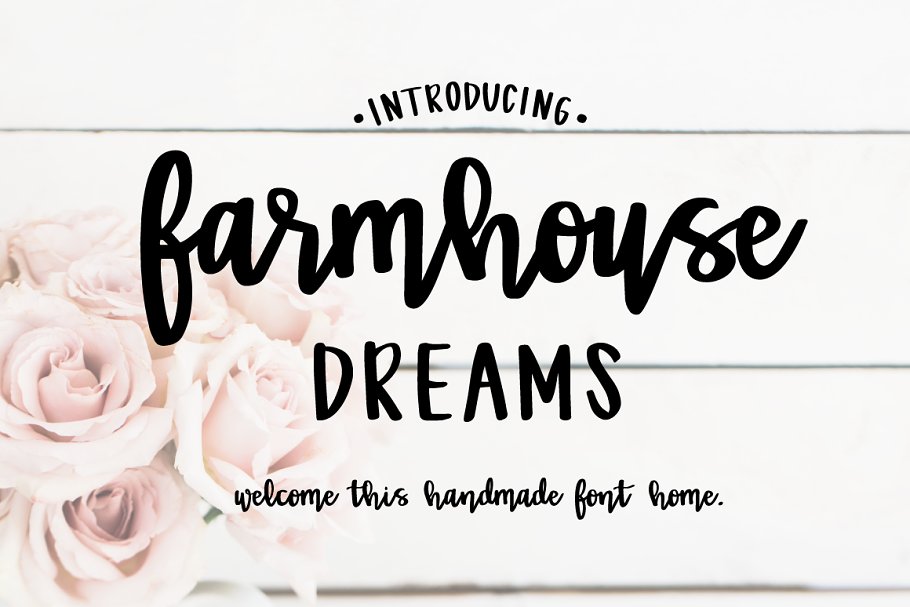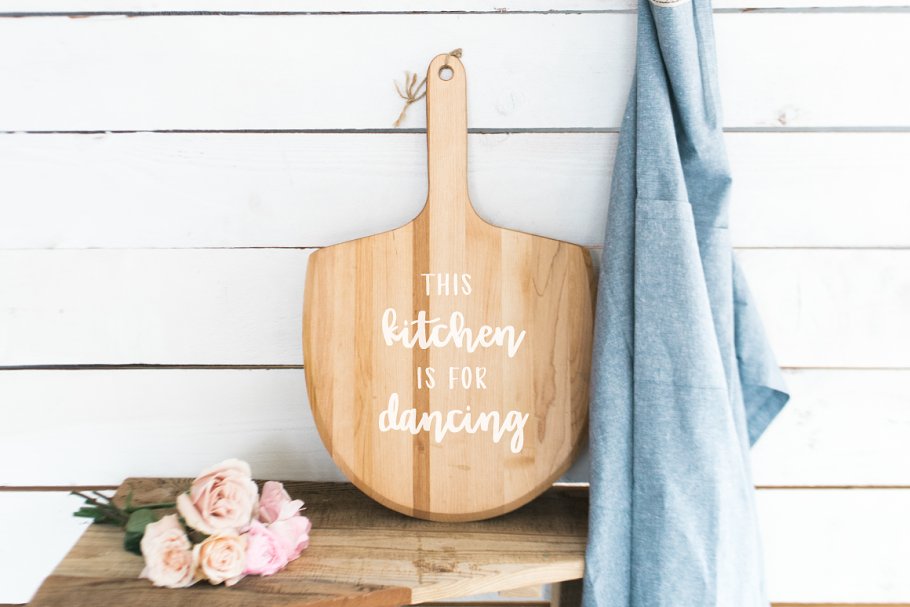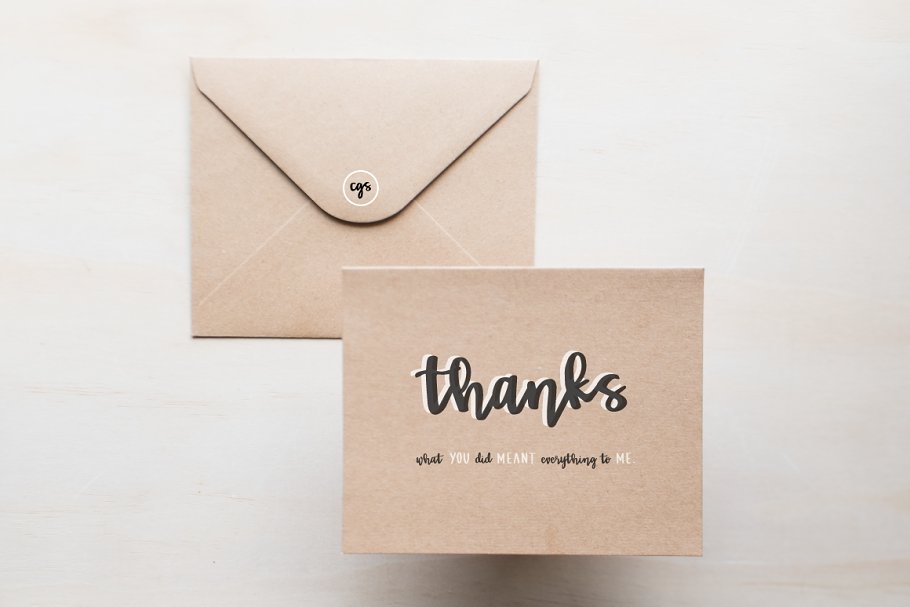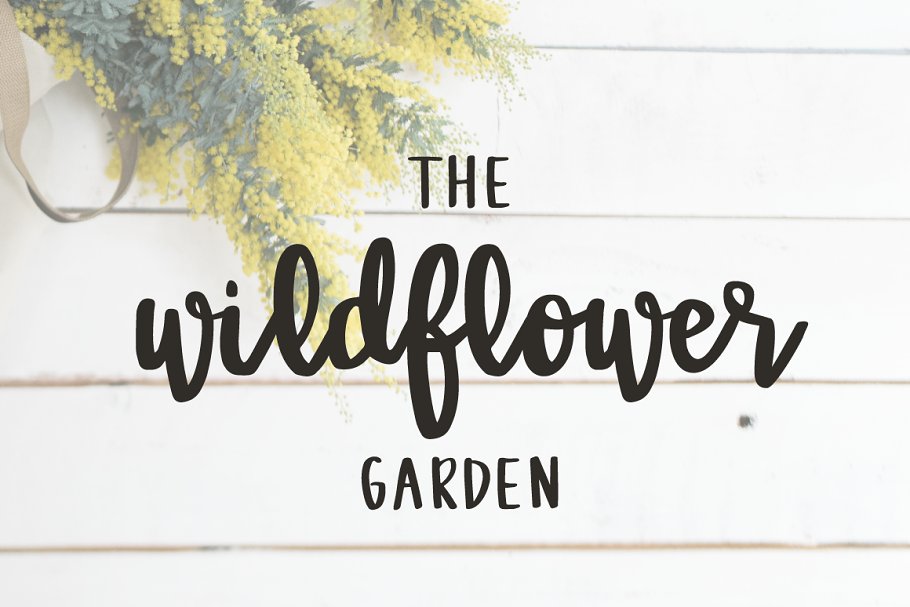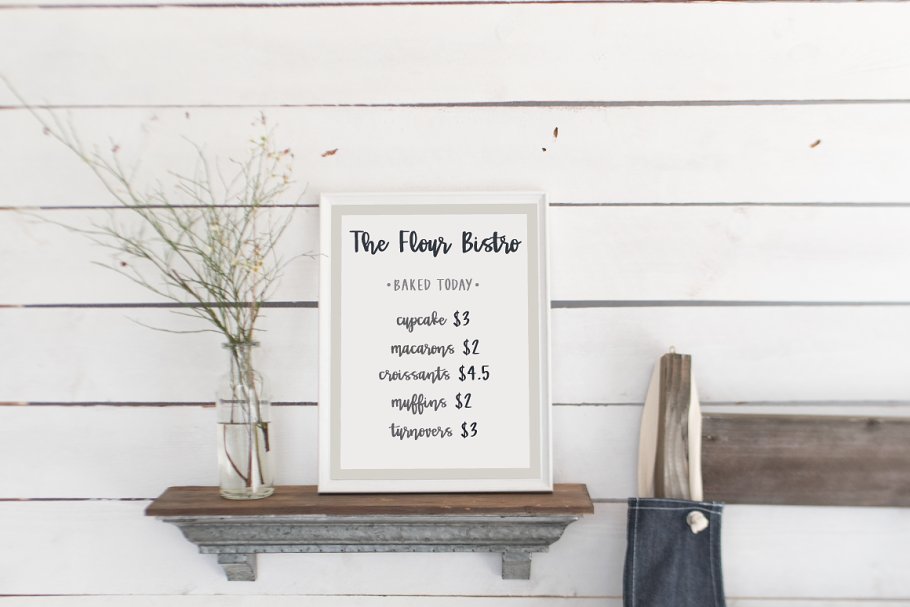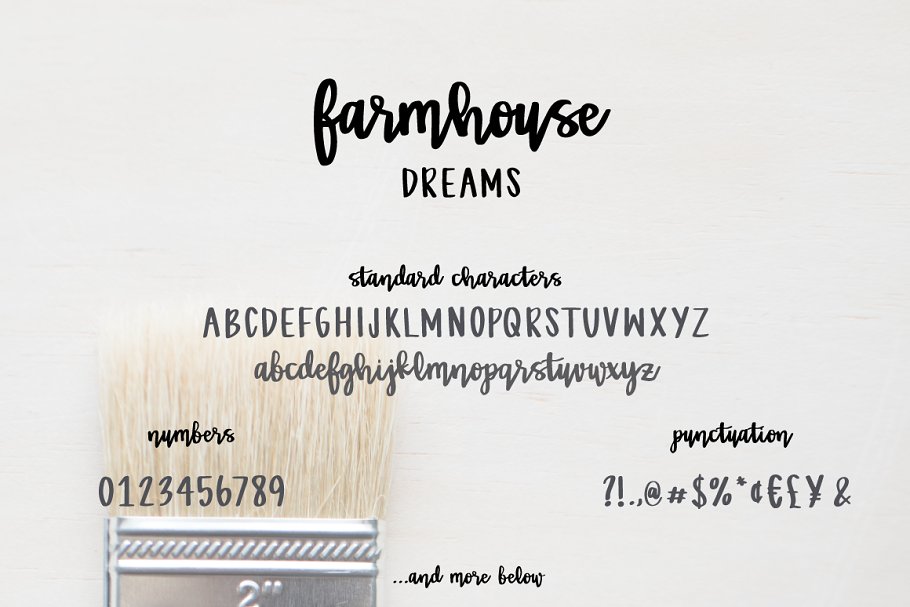
About the Farmhouse Dreams Script Font
Fill your designs with this beautiful hand-lettered brush font, Farmhouse Dreams is the perfect blend of old and new with its modern hand-lettered lowercase and the timelessness of its hand drawn uppers, Farmhouse Dreams works perfectly for, website branding, stationery, packaging, magazine layouts, prints, DIY home decor and so much more!Use uppercase for a completely different font style, or mix and match lowers and uppers depending on your design needs
Farmhouse Dreams has some coded features to give it a more handmade feel: 1 initial character, 1 end character, and 3 standard ligatures, OTF, TTF, & WEBFONTS are included for the full Farmhouse Dreams font, Don’t know how to install a font on a Mac? Check out my tutorial: https://cateshaner